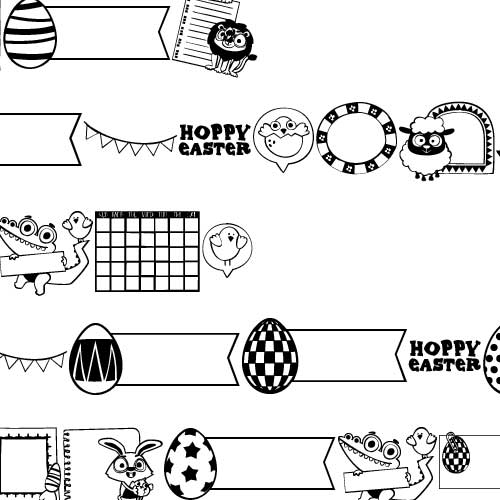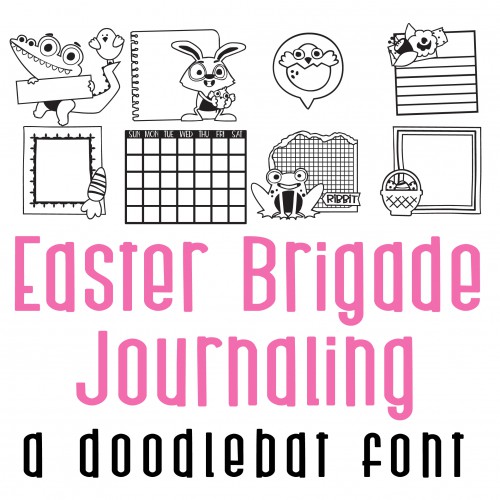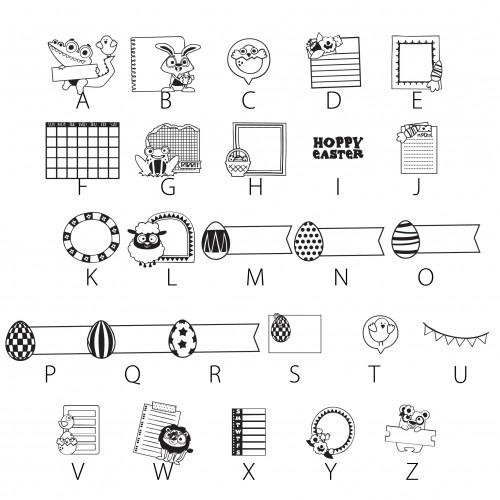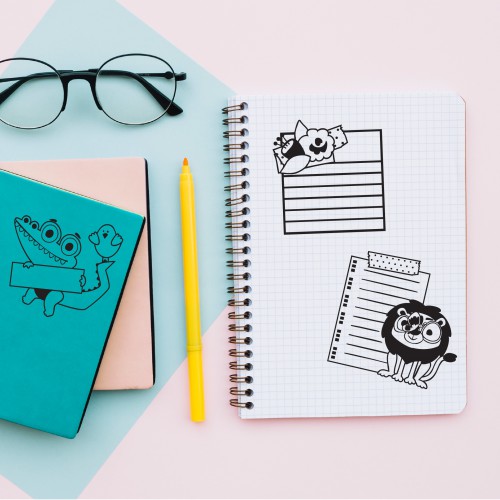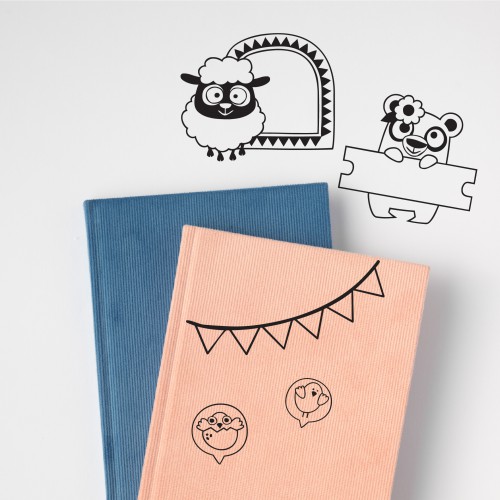
DB Easter Brigade - Journaling - DB
This adorable doodlebat font features 26 Easter animals and journaling imagery, perfect for fun cards, crafts, gifts, planner stickers, scrap book pages, parties, classrooms and more!